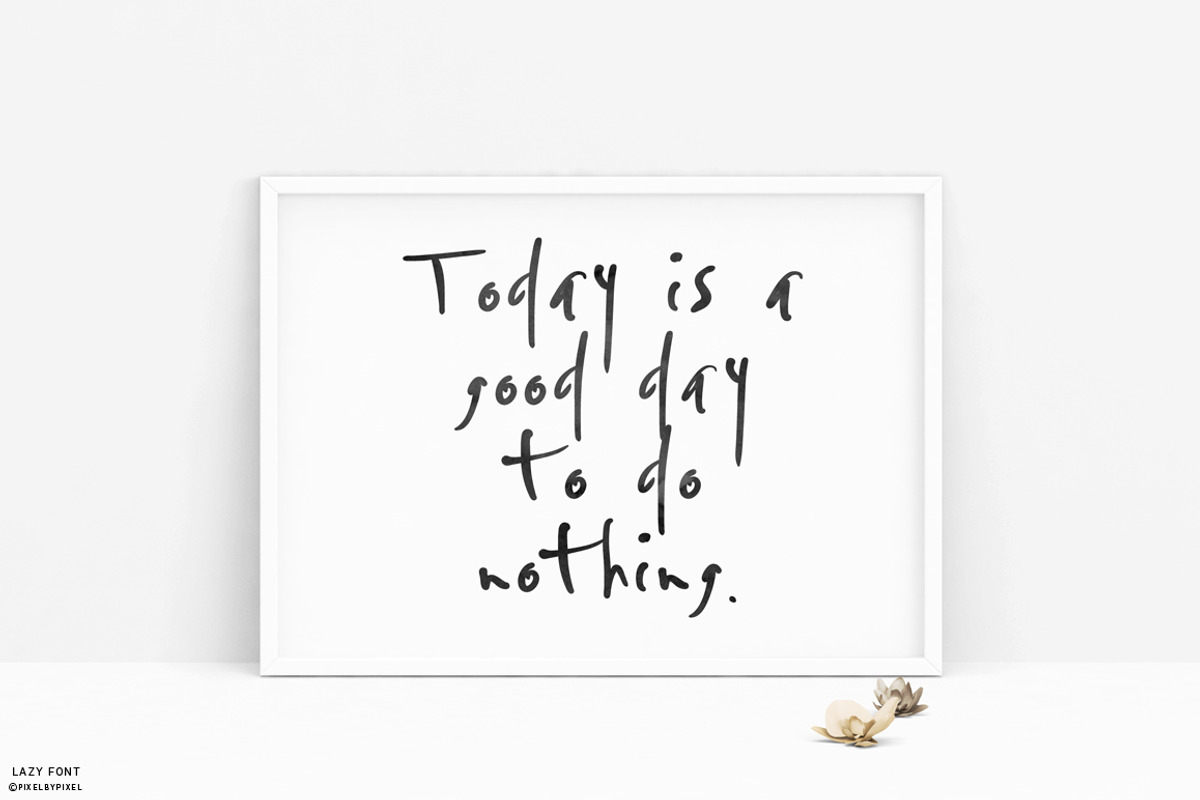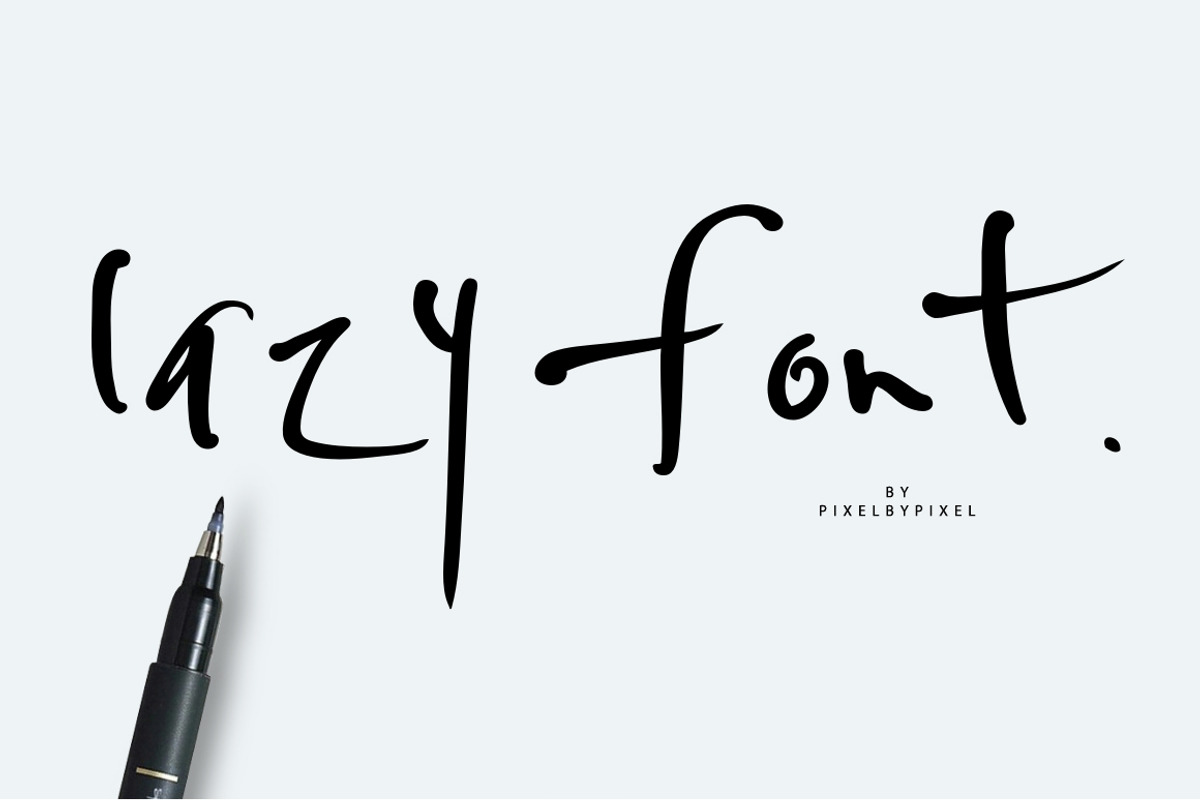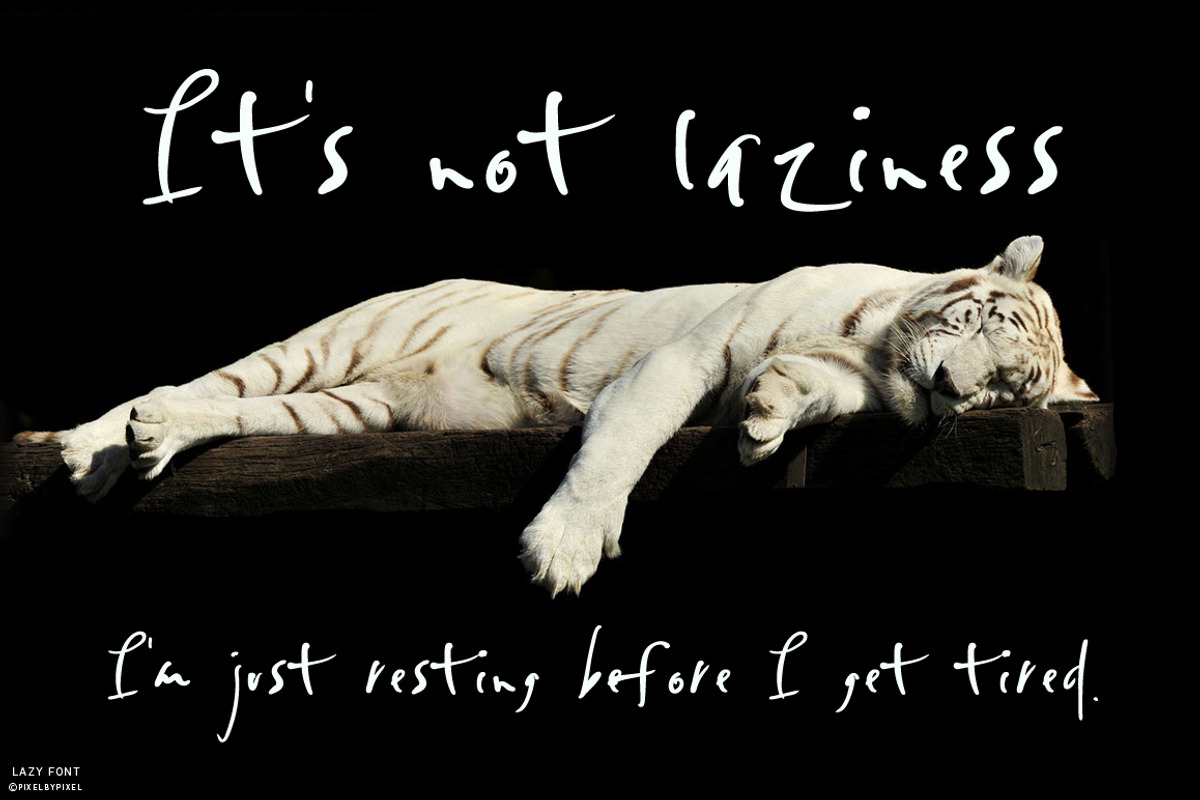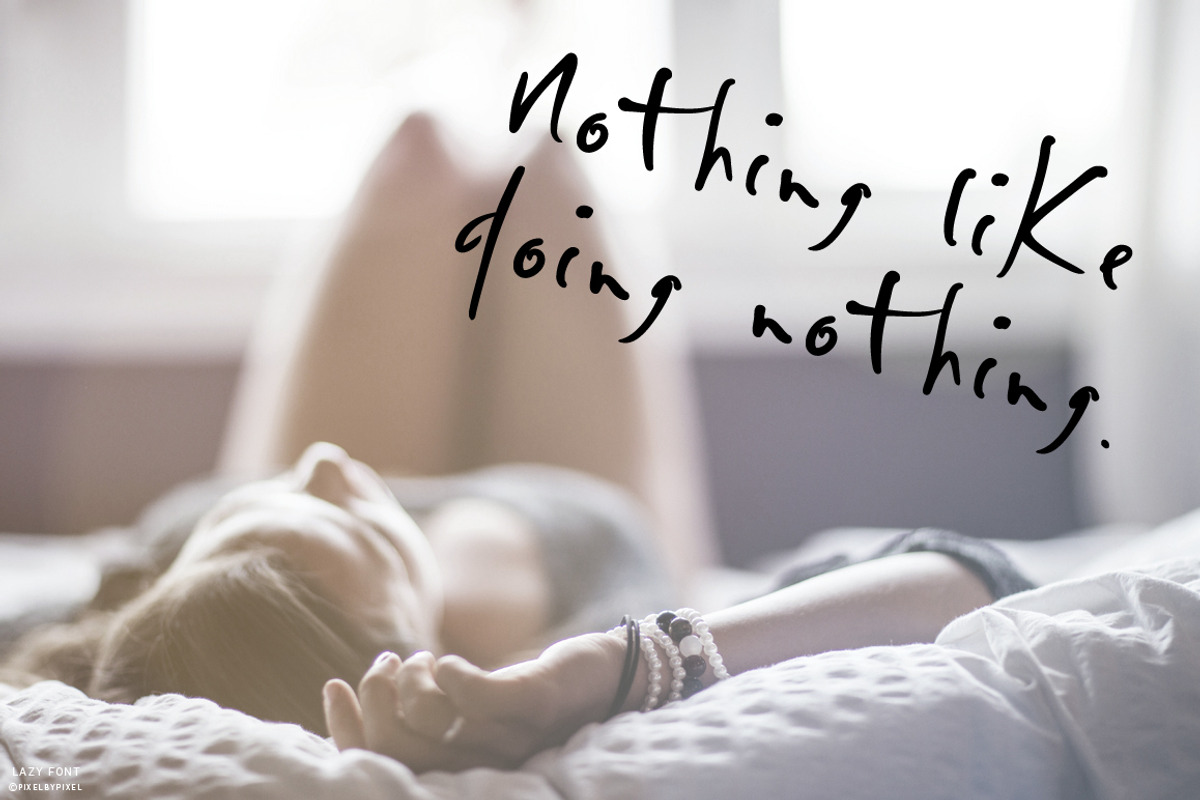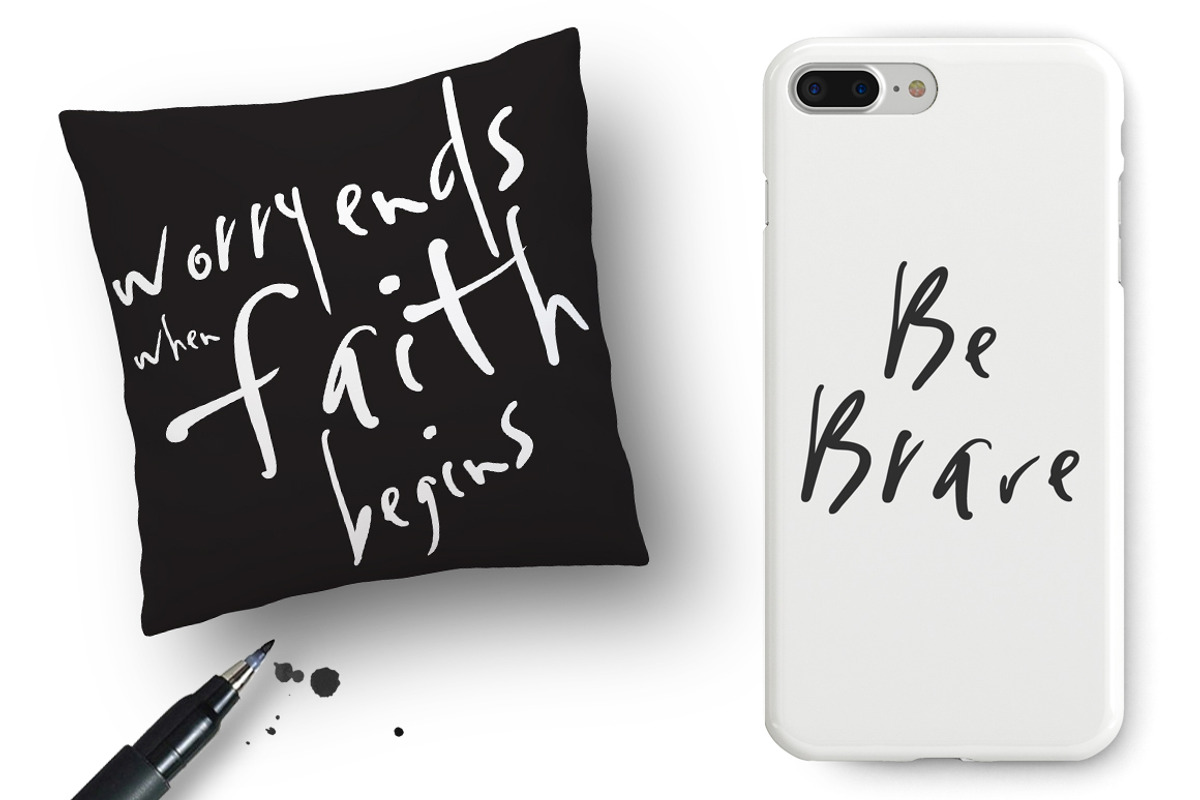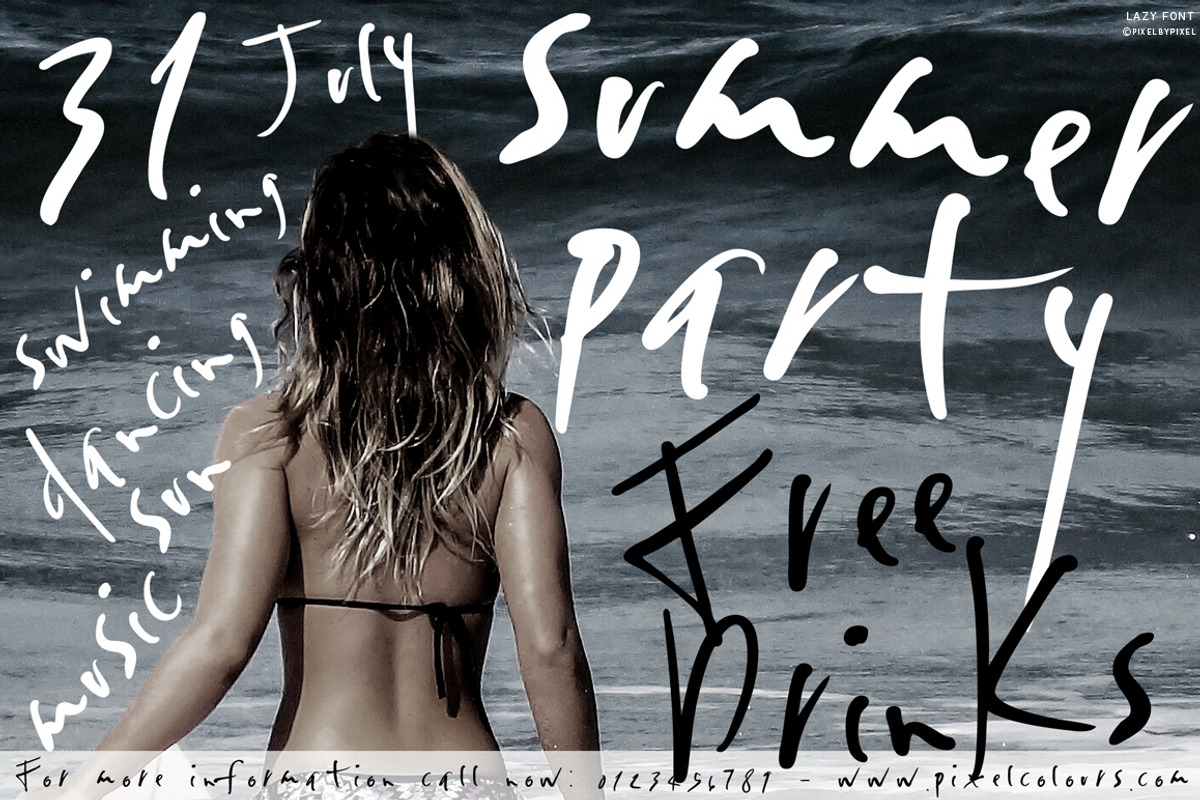
Handwritten Lazy Font
Feeling lazy inspired me to work! To work on this lazy looking font. π¬ With a free style and strokes that look like fresh ink, this font will make your design pop!
Uppercase and lowercase characters
Numerals and punctuation